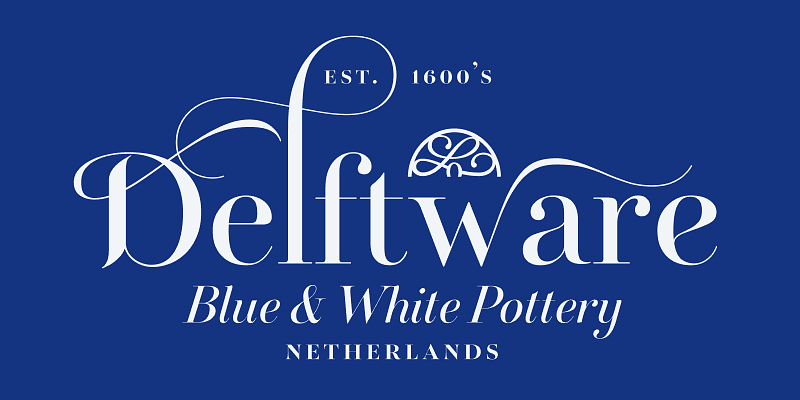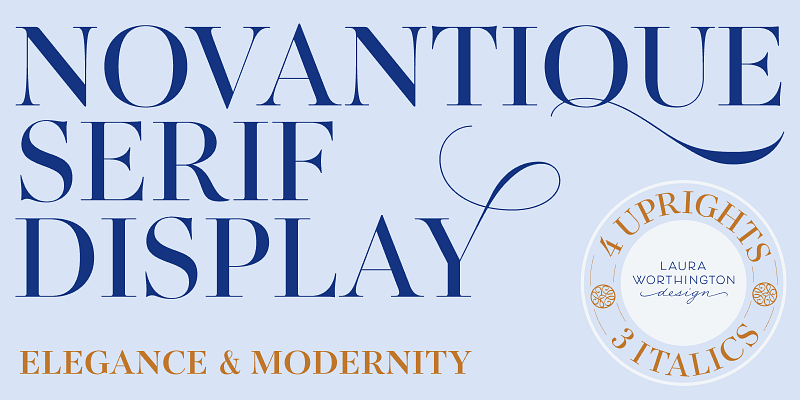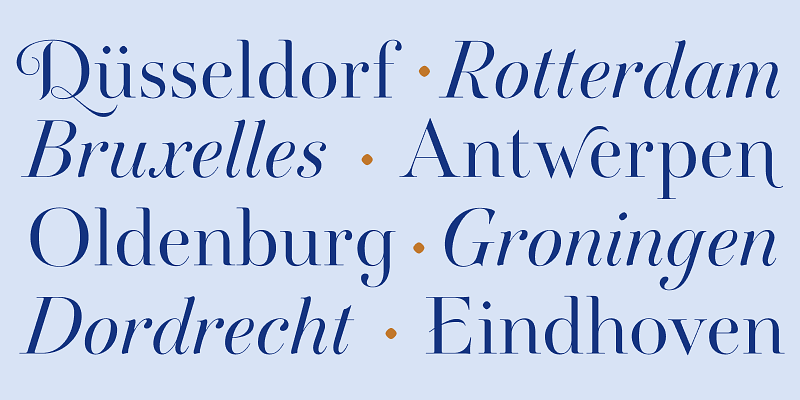
Novantique Serif Display is part of a captivating collection—four related families, each distinct yet visually united across Sans, Script, Serif, and Serif Display. Together they were designed to grace editorial hierarchies from cover to byline, and each holds its own beautifully.
This subfamily offers seven exquisite styles spanning Light through Bold, each with italics, plus a Swashes set for those moments that call for something more. The italics are refined and graceful, and the Swashes open up enticing possibilities for custom titling and logotype work. Elegant, layered, and endlessly versatile—Novantique Serif Display is made for designers who believe details matter.